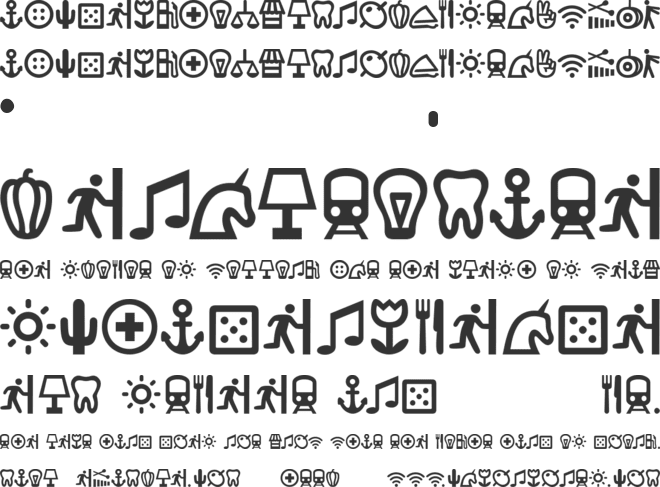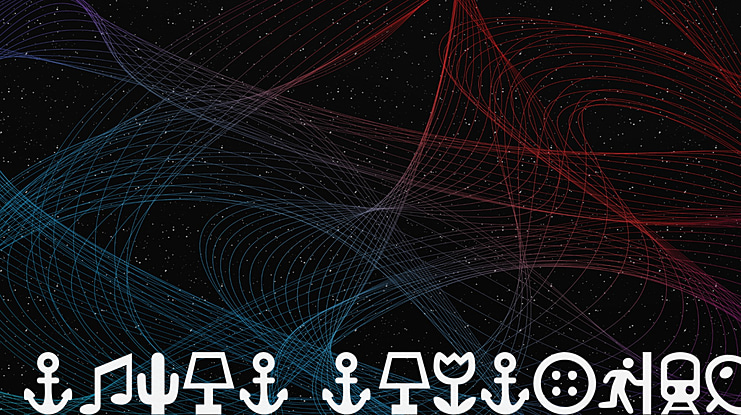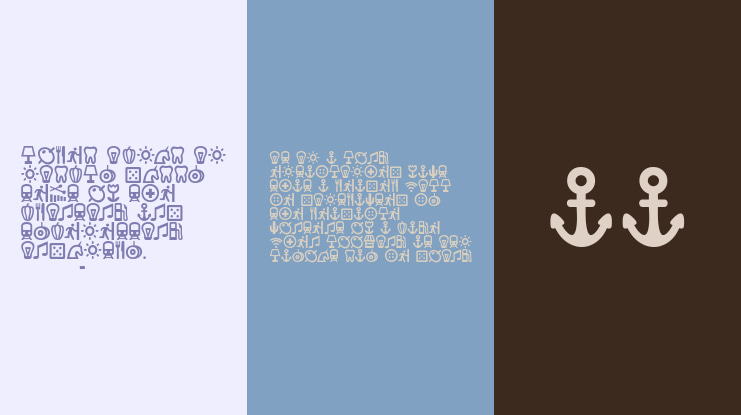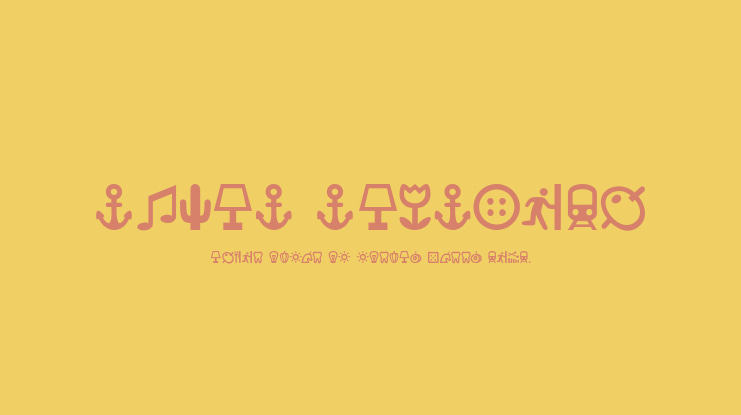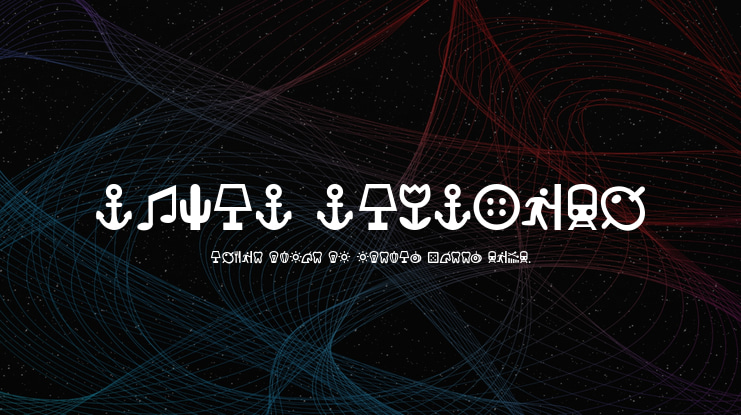
Ancla Alfabeto Font
It is a Rebus font based on icons and symbols that can be intuitively decrypted and whose key words start by the same letter that represent in English, Spanish and French.